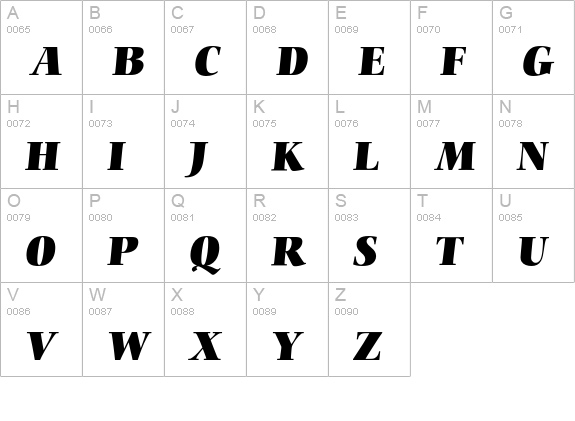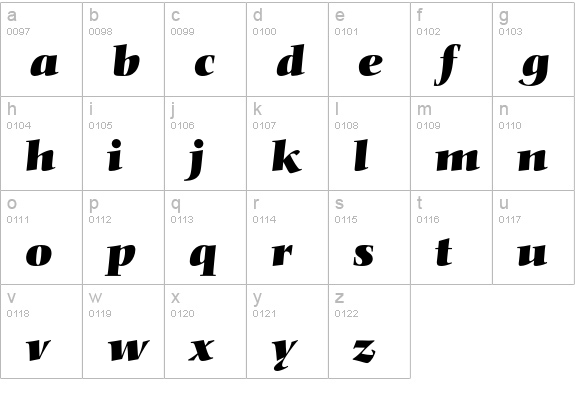
Nofret Expert BQ Bold Italic OsF is a strong, high-contrast, italic variant in the Nofret typeface family \xE2\x80\x94 well suited to headlines, attention-grabbing titles, and strong calls-to-action.
Nofret Expert BQ Bold Italic OsF font is a stunning and versatile typeface that exudes elegance and sophistication. With its bold and italic design, this font is perfect for making a bold statement in any design project. The sleek and modern look of Nofret Expert BQ Bold Italic OsF font makes it ideal for a wide range of applications, from branding and advertising to editorial design and web graphics. What sets Nofret Expert BQ Bold Italic OsF font apart is that it is freely available to download at FontsMarket.com. This means that you can easily access this high-quality font without any cost, making it a valuable resource for designers and creatives looking to elevate their projects. Whether you're working on a professional design project or simply want to add a touch of sophistication to your personal creations, Nofret Expert BQ Bold Italic OsF font is the perfect choice. Download it today and see how it can enhance your designs!